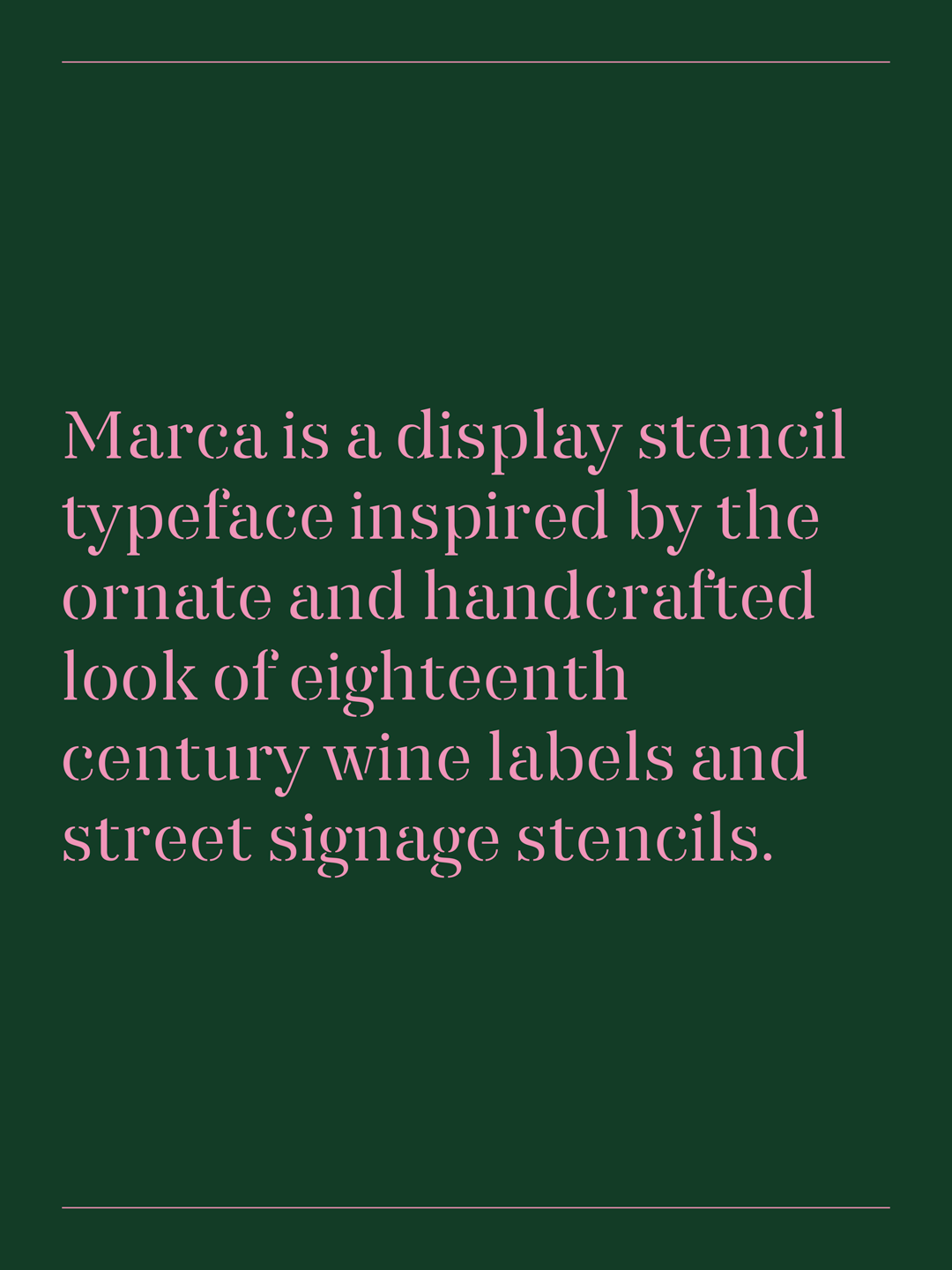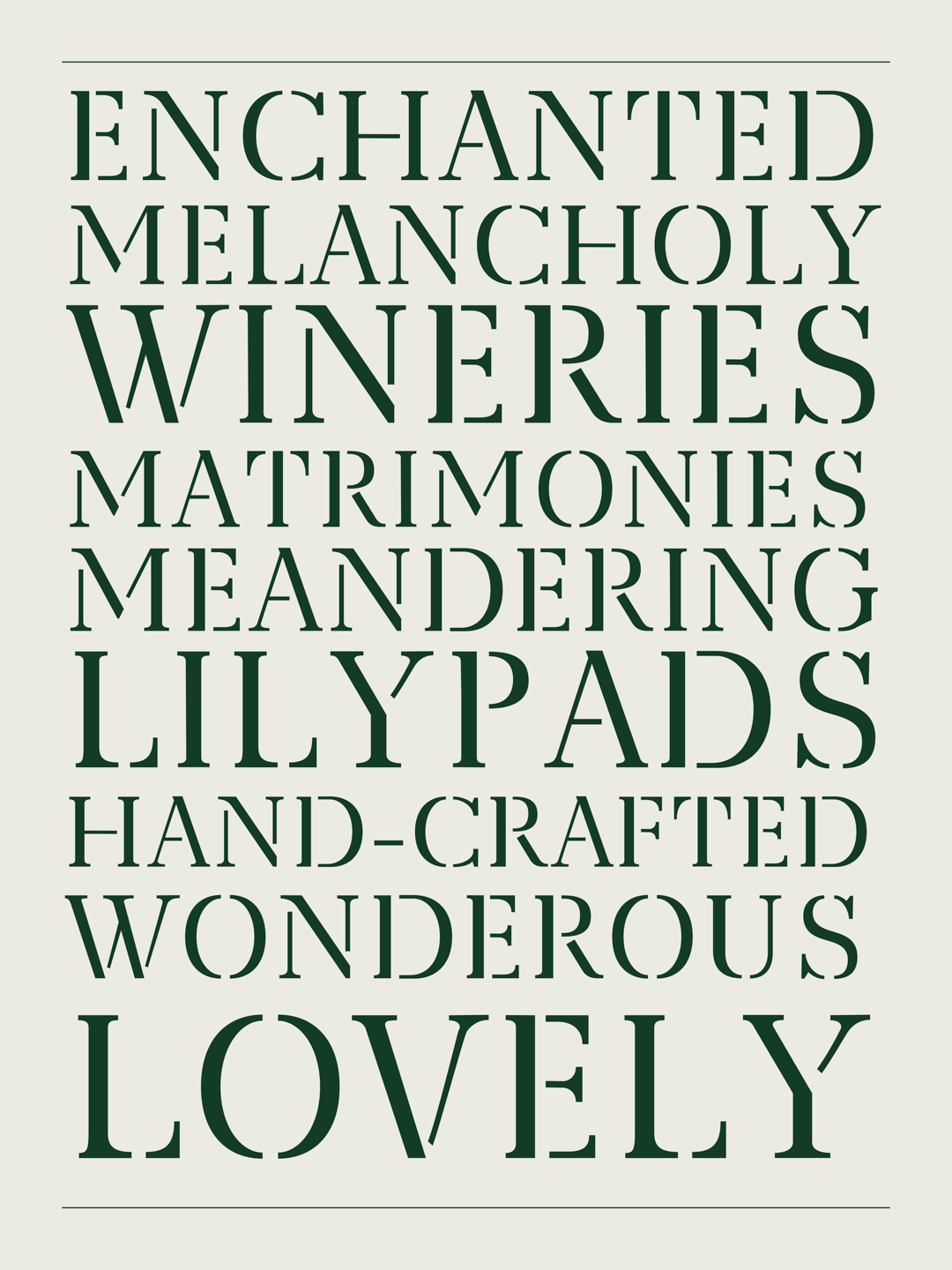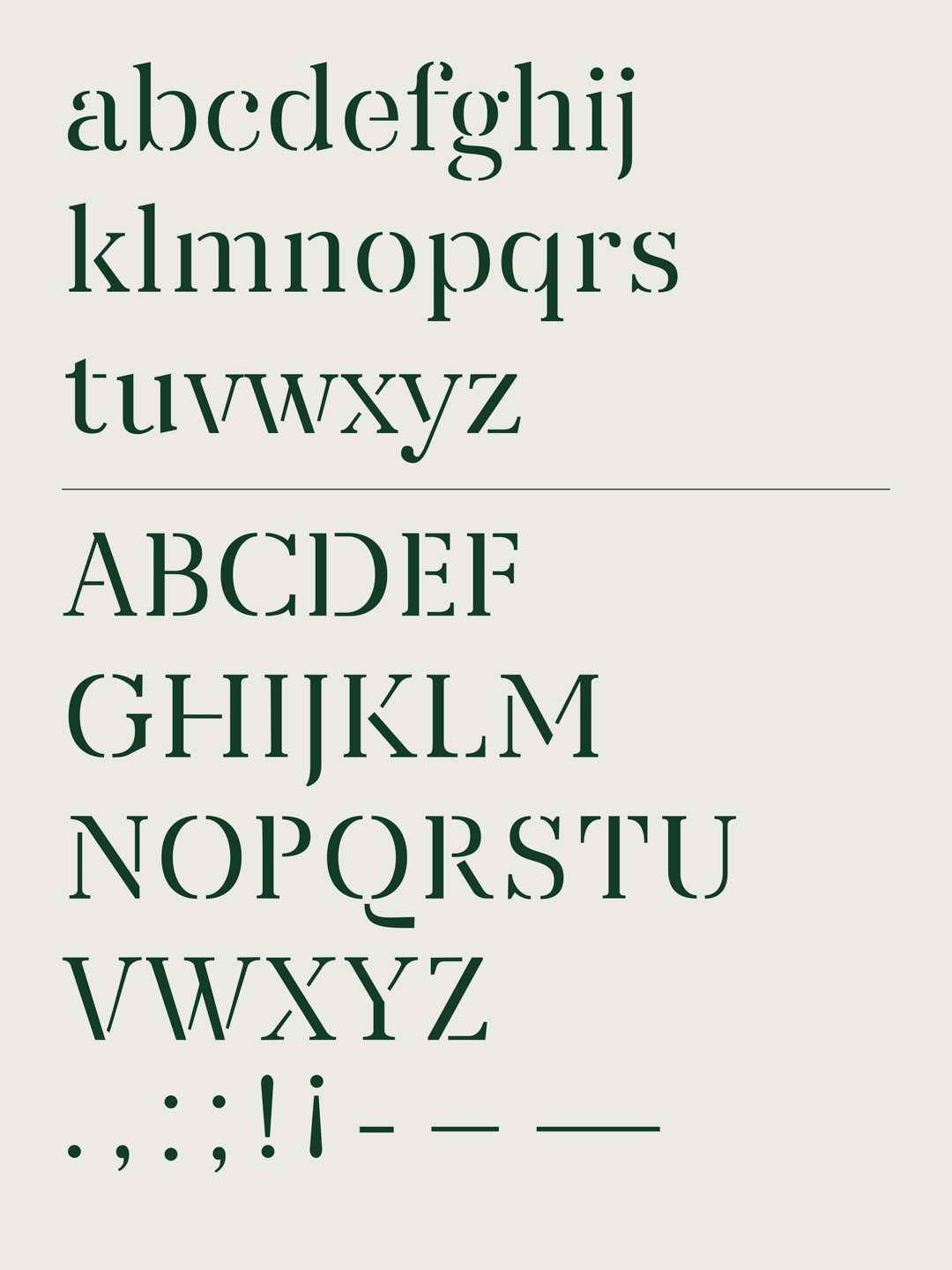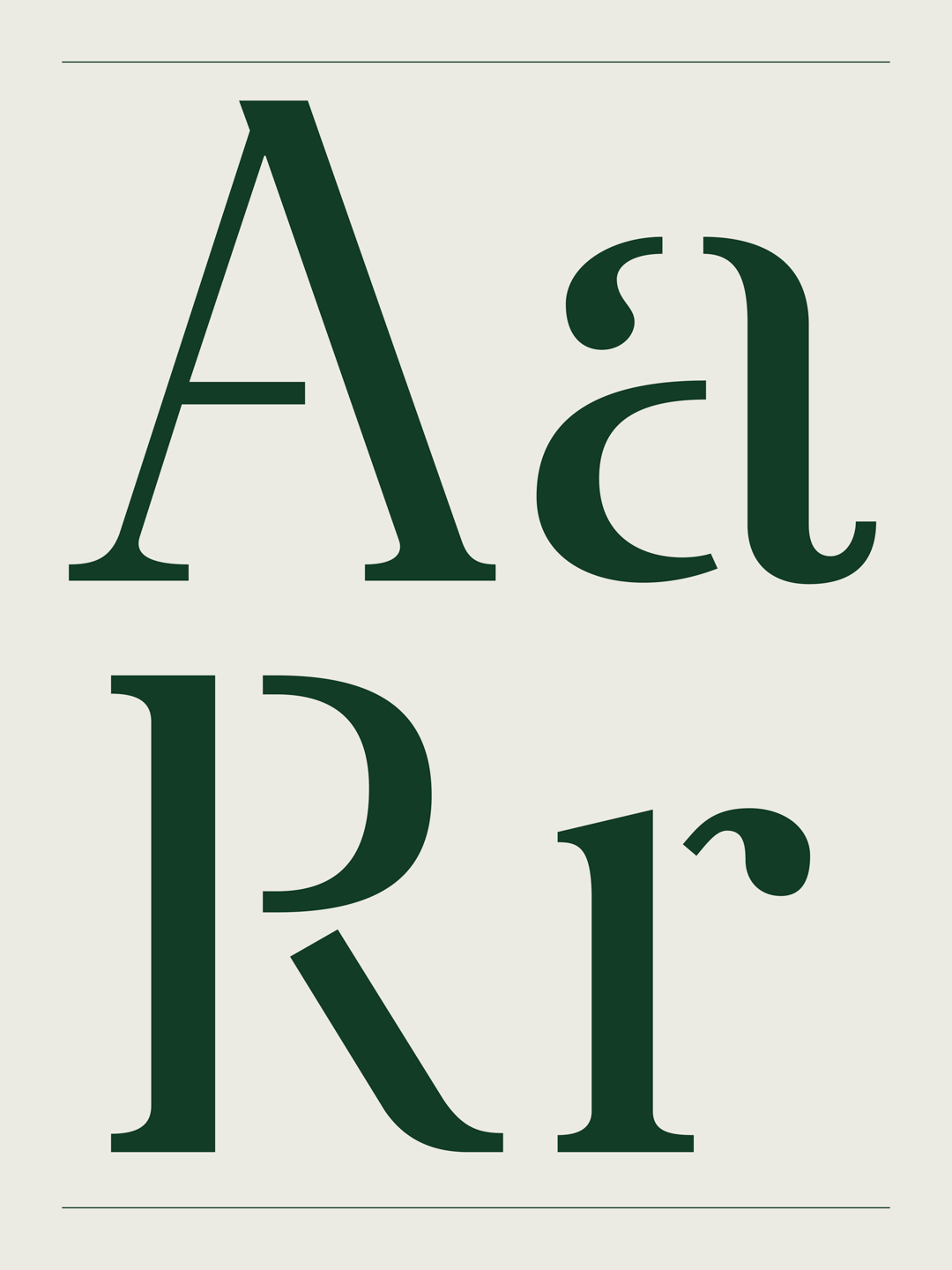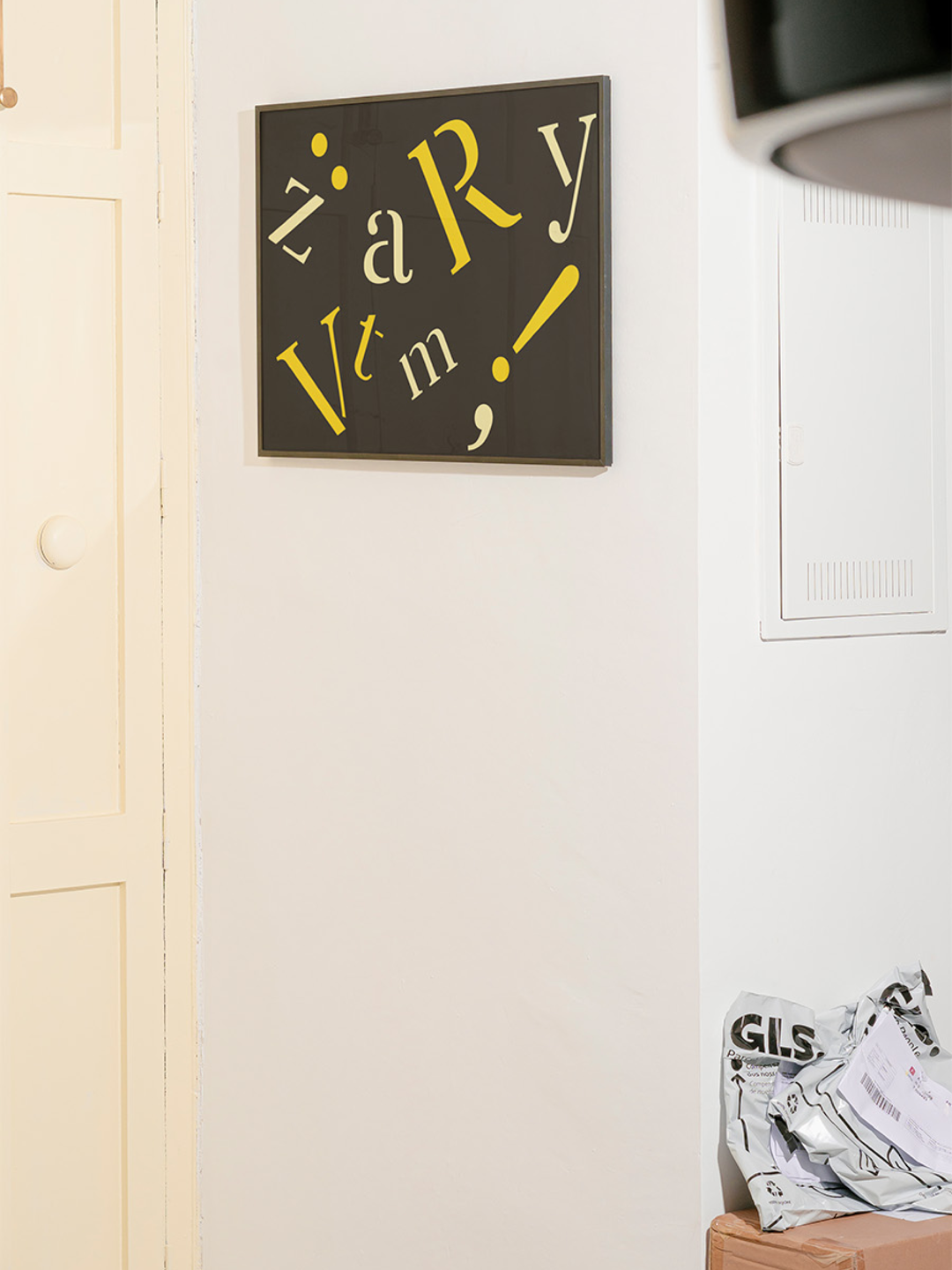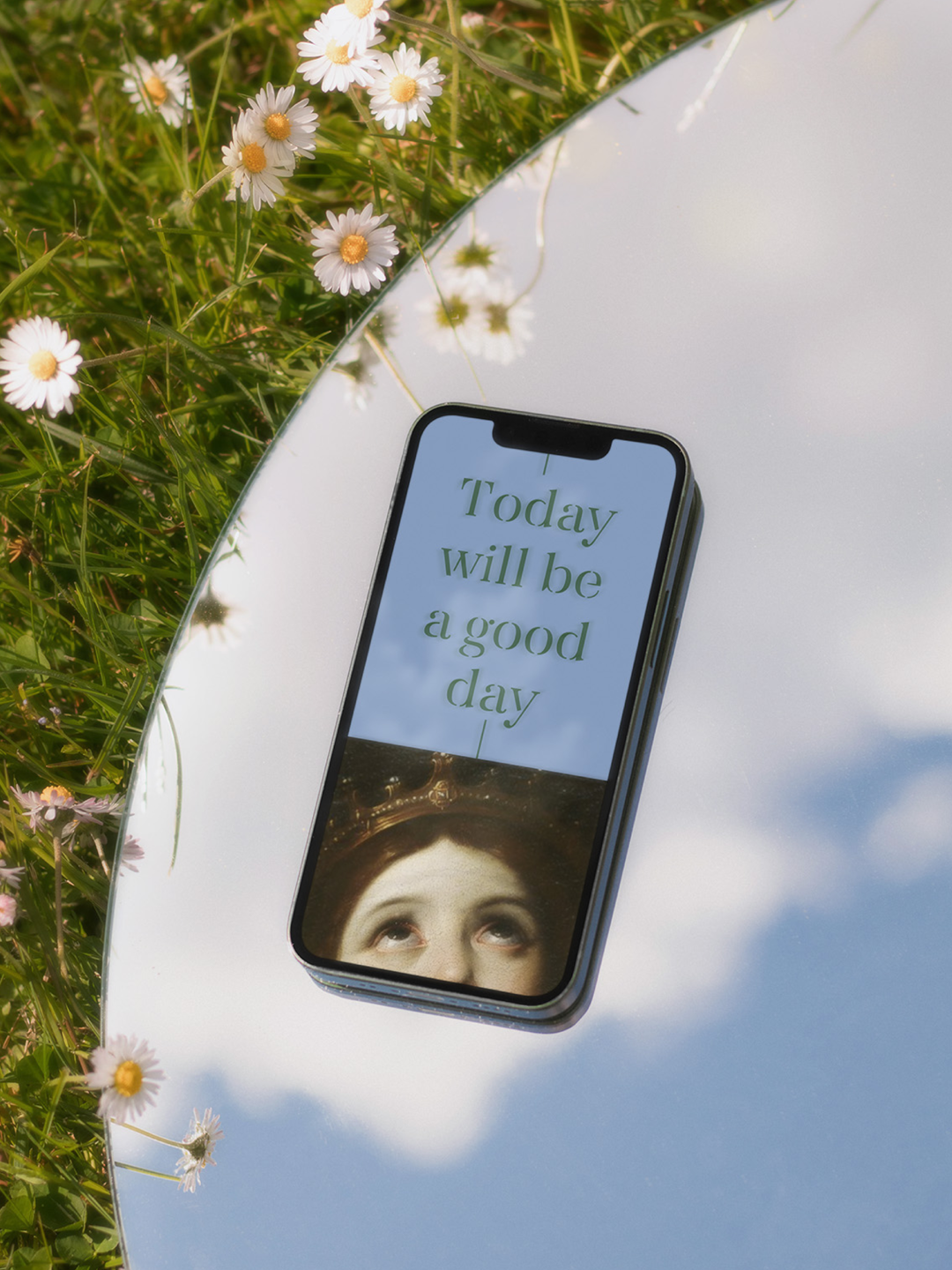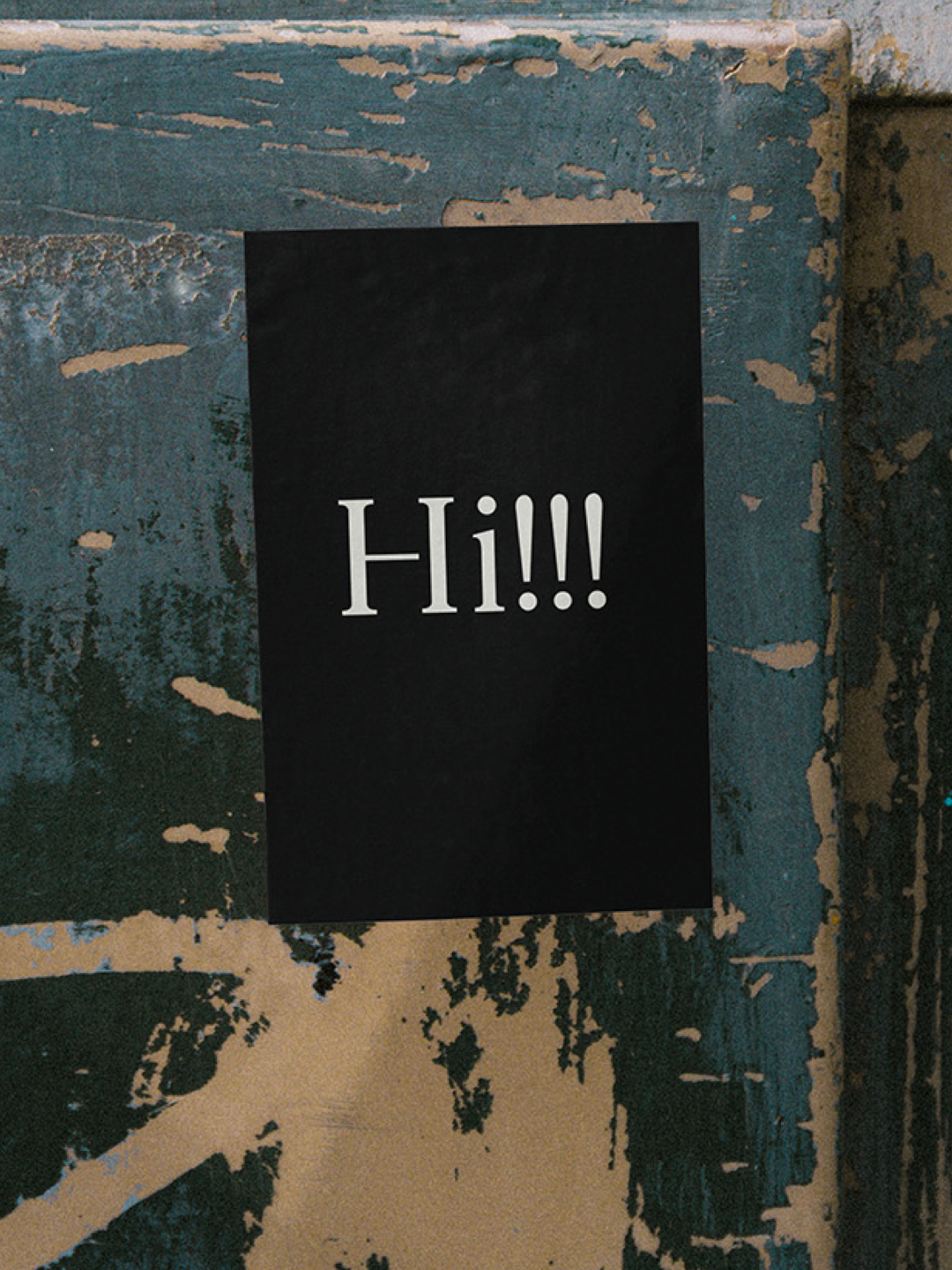
MARCA is a display stencil typeface inspired by the ornate and handcrafted look of eighteenth century wine labels and street signage stencils. I wanted to challenge myself to create a serif and develop a workflow for designing type that worked for me.
My process involved a lot of researching from different books available from my local libraries, trying to find as many stencils as I could, before narrowing down and honing in on the details that I wanted to implement, as well as the use cases for the typeface. One of my hopes was that the final typeface would have the potential to be expanded to have a text and sans-serif companion further down the line.